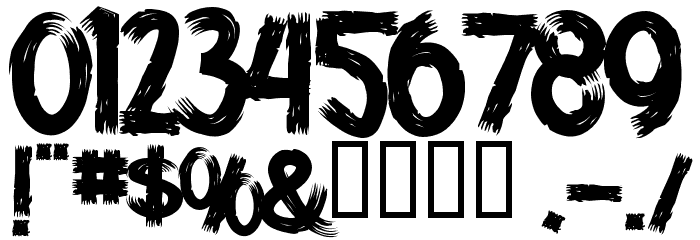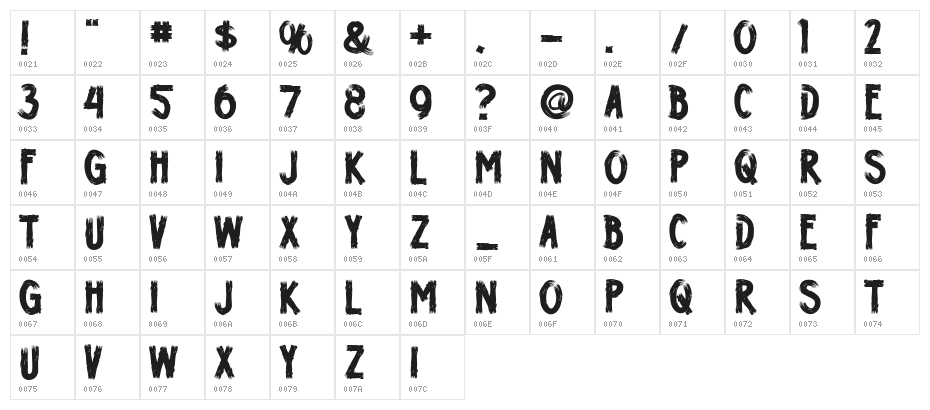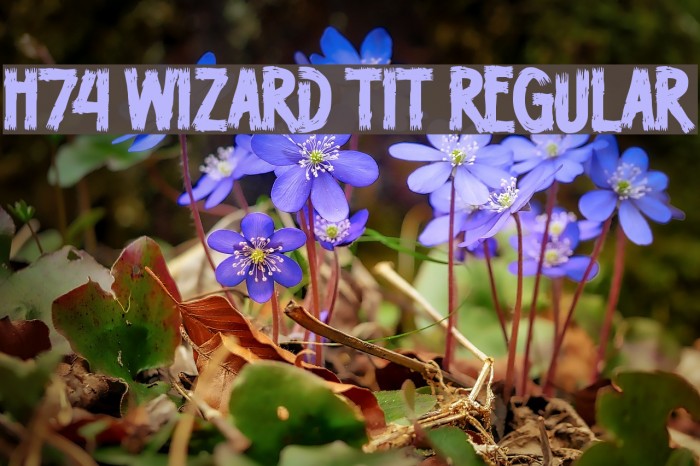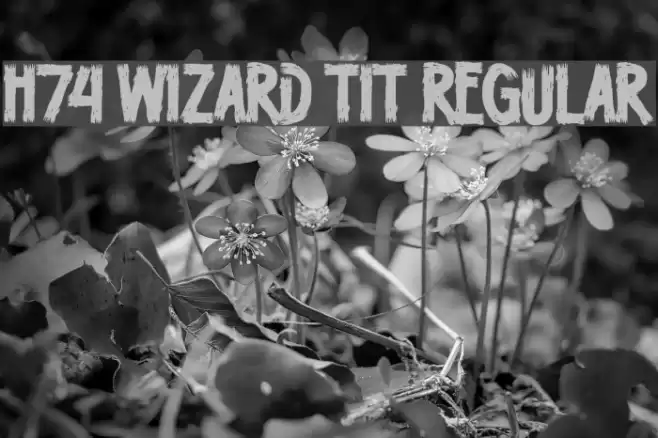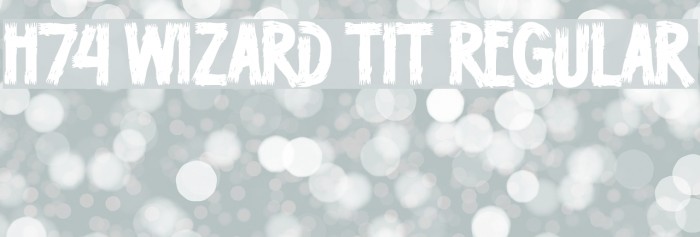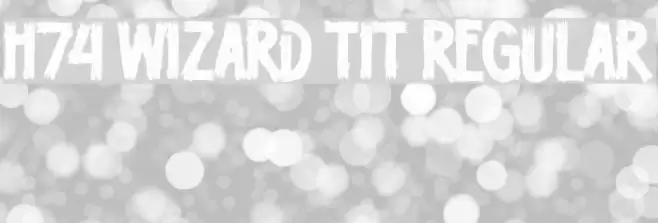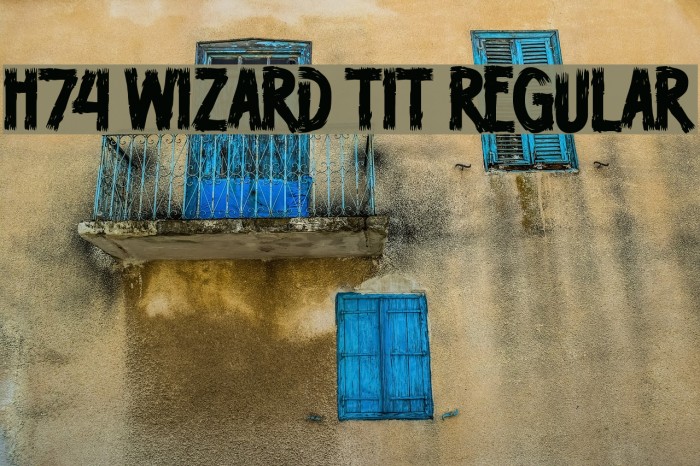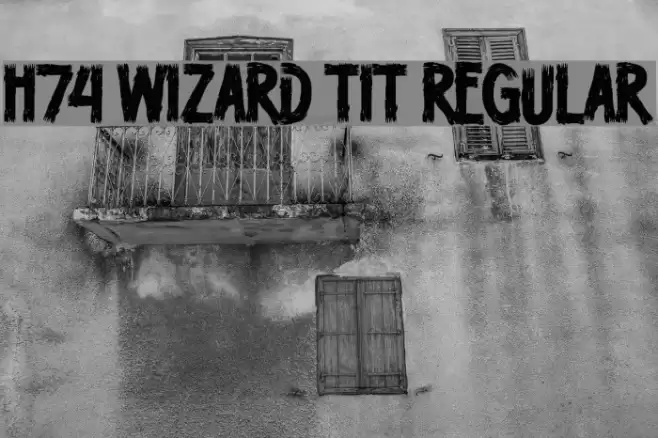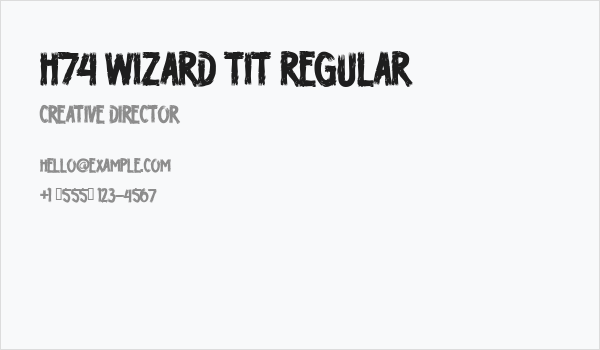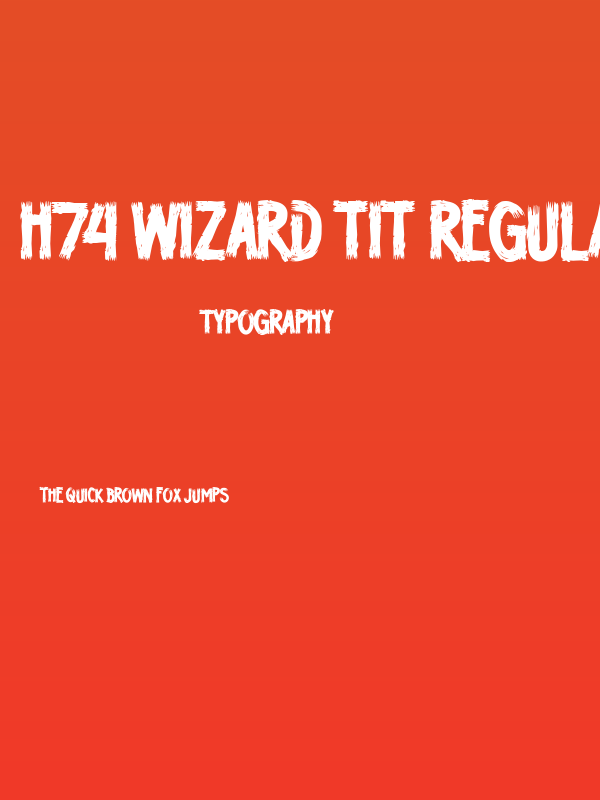
H74 Wizard Tit Regular Font
H74 Wizard Tit Regular Description
This font features a bold, brushstroke style that gives it a dynamic and energetic appearance. The characters are designed with rough, textured edges, creating a sense of movement and spontaneity. The uppercase and lowercase letters maintain a consistent style, while the numbers and special characters complement the overall design. This font is highly decorative, making it ideal for projects that require a strong visual impact. The irregular strokes and bold presence make it stand out, perfect for creative and artistic applications.
| Proposed Projects | Ideal for posters, album covers, artistic branding, and any project requiring a bold, creative touch. |